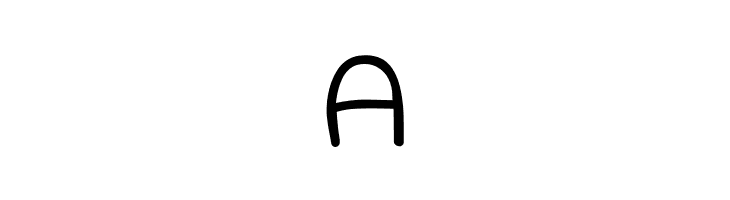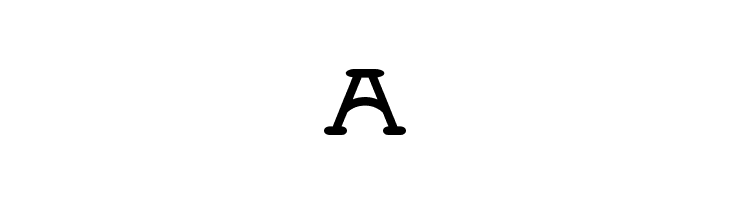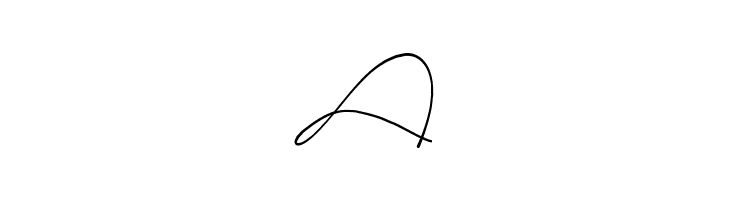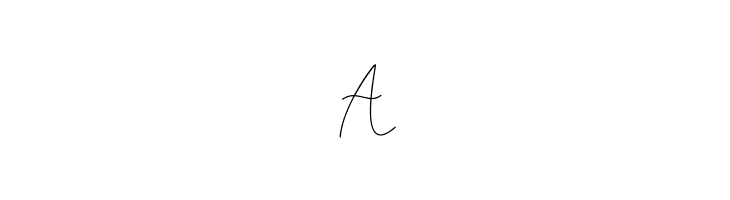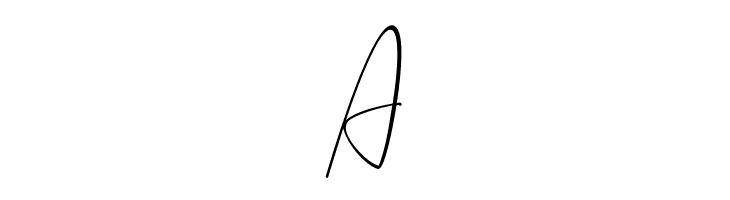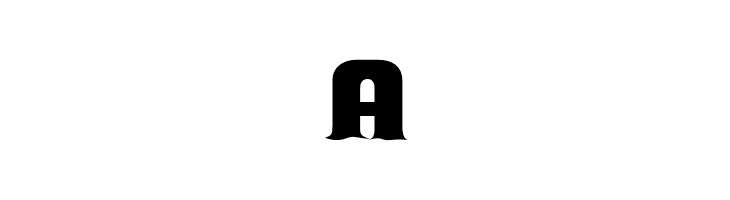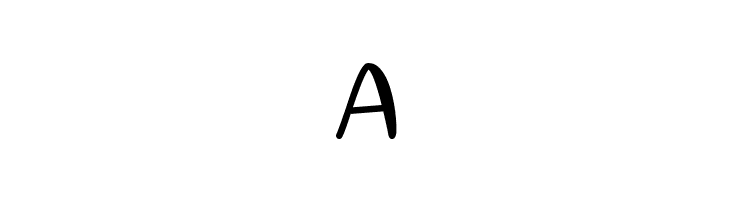
A playful, hand-drawn font with a whimsical and casual style.
A playful, bubbly font with a hand-drawn, whimsical style.
A playful, casual handwritten font with smooth, rounded edges.
A bold, rounded font with a playful and friendly style.
An elegant, flowing script font with intricate loops and flourishes.
An elegant, cursive script font with ornate swashes and flowing curves.
A bold, angular font with a runic, tribal aesthetic.
A bold, italicized font with sharp, angular edges and a futuristic style.
A bold, angular font with a runic, italicized style.
A bold, sharp-edged font with a vintage yet modern aesthetic.
A bold, geometric font with sharp lines and a modern aesthetic.
A bold, decorative font with elegant curves and a strong presence.
An oblique, angular serif font with a dynamic and energetic style.
A dynamic handwritten font with smooth, fluid strokes and a casual elegance.
A flowing, cursive font with elegant, interconnected characters.
A flowing, cursive font with elegant, interconnected letters.
A playful, hand-drawn font with a whimsical and informal style.
A bold, rounded font with a playful and retro vibe.
A playful, handwritten font with tall, narrow letters and smooth strokes.
A cursive, calligraphic font with elegant, flowing strokes.
A whimsical, graffiti-inspired display font with lively illustrations.
A casual handwritten font with a fluid and personal touch.
A playful, handwritten font with a casual and dynamic style.
A playful and casual handwritten font with dynamic strokes and moderate contrast.
A modern, rounded font with consistent stroke width and excellent legibility.
A modern, handwritten font with elegant, flowing connections and dynamic strokes.
A flowing, cursive font with an elegant, handwritten style.
A playful, handwritten font with fluid, connected letterforms and a casual style.
A playful, casual handwritten font with smooth, connected letterforms.
A bold, rounded serif font with a playful yet structured style.
An outline serif font with a modern and artistic style.
A delicate and elegant script font with flowing, cursive letterforms.